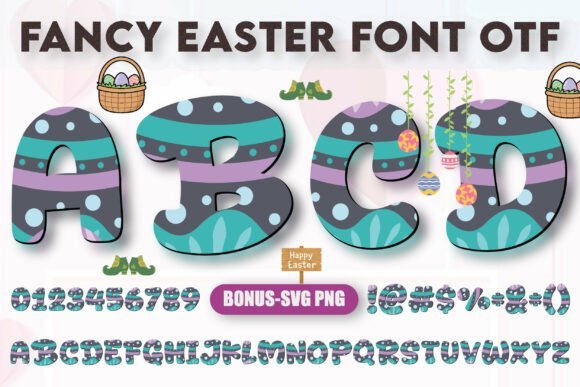
Spring into Creativity with the Fancy Easter Font
As the snow melts away and spring flowers start to bloom, designers everywhere are looking for fresh ways to add some seasonal flair to their projects. It’s that moment when you’re brainstorming ideas for Easter-themed invitations, menus, or scrapbooking layouts, and you wish you had the perfect font to match your creative vision.
Enter the Fancy Easter Font, a charming and playful typeface designed to add a touch of decorative magic to your spring celebrations. With its intricate patterns of dots, waves, and floral-inspired motifs, this bold display font is the perfect choice for making every word feel like a hand-decorated holiday treat. Whether you’re a graphic designer, scrapbooker, or baker, the Fancy Easter Font is a valuable addition to your design toolkit, elevating your seasonal branding with its beautifully patterned, festive characters.
Fancy Easter Font Key Features
- Unique Characteristics: The Fancy Easter Font features intricate, hand-drawn designs with Easter-themed elements like eggs, bunnies, and flowers, adding a touch of whimsy to any project.
- Character Set: The font includes a comprehensive set of uppercase and lowercase letters, numbers, and punctuation marks, as well as special characters and symbols.
Fancy Easter Font Review
Fancy Easter Font is a whimsical and playful typeface that’s perfect for adding a touch of springtime magic to your designs. ✨ The font’s intricate details and ornate flourishes make it a great choice for Easter-themed projects, invitations, and graphics. The font’s versatility also makes it suitable for other seasonal and celebratory designs.
However, there are a few limitations to consider: ⚠️ The font’s complexity can make it difficult to use at small font sizes, and the intricate details can sometimes make the text appear cluttered. Additionally, the font’s ornate style may not be suitable for all types of projects, such as formal or minimalist designs.
Here are some key features to keep in mind:
- Perfect for Easter and spring-themed projects
- Whimsical and playful style
- Ornate flourishes and intricate details
- May be difficult to use at small font sizes
- Not suitable for formal or minimalist designs
Overall, Fancy Easter Font is a delightful addition to any designer’s toolkit, but it’s essential to use it judiciously and consider its limitations when selecting a font for your project.
The Fancy Easter Font is perfect for:
– Easter invitations and party decorations
– Spring-themed social media graphics
– Easter card designs and stationery